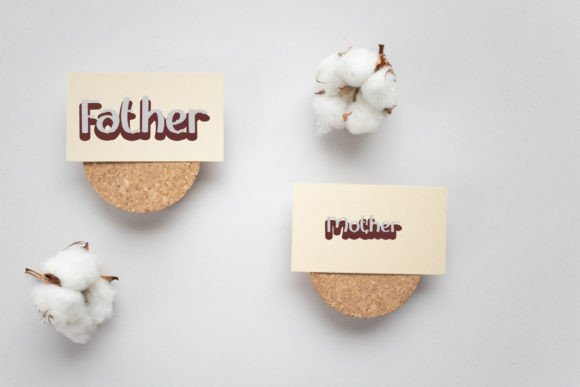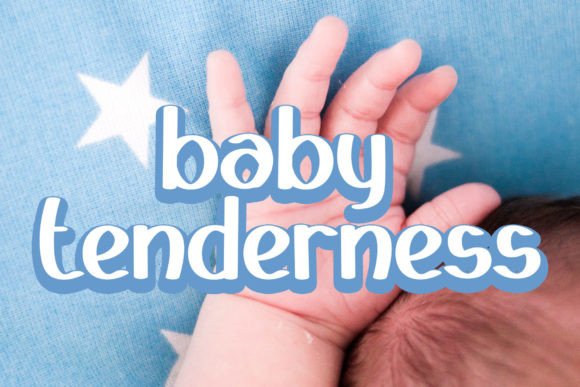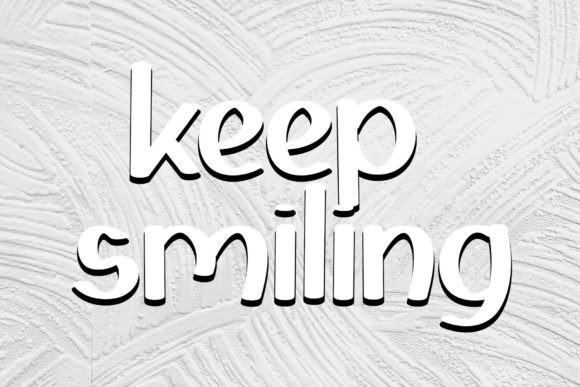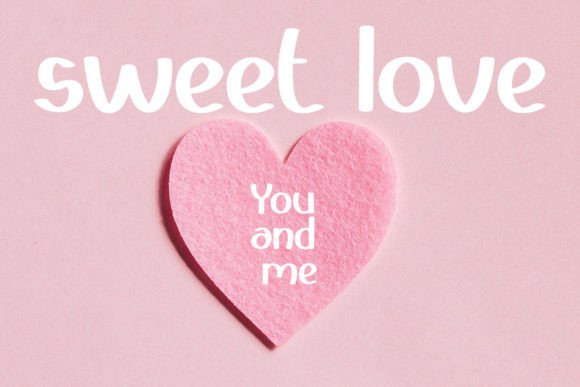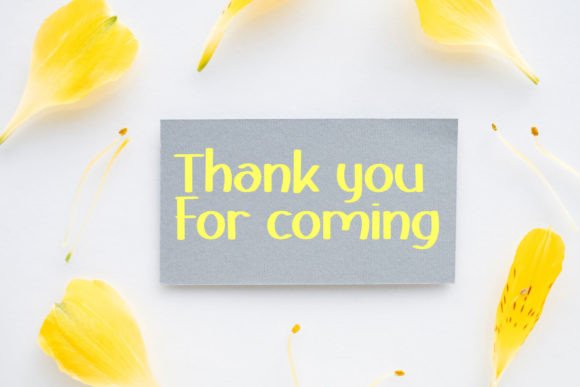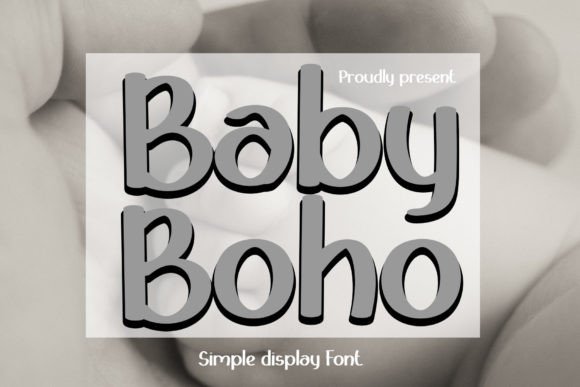
Baby Boho Font: Adding a Touch of Whimsy to Your Designs
In the world of typography, fonts play a crucial role in conveying the tone and personality of a design. For designers and crafters looking for a font that exudes a sense of fun, quirkiness, and individuality, Baby Boho is an excellent choice. This cute handwritten font is perfect for adding a touch of uniqueness to any project, and in this article, we’ll explore what makes Baby Boho so special.
Handwritten fonts have always been popular among designers and crafters, and for good reason. They add a personal touch to any project, making it feel more approachable and relatable. Baby Boho is no exception. Its natural, handwritten style creates a sense of warmth and charm, making it perfect for designs that require a human touch.
What Makes Baby Boho Special?
Baby Boho is a one-of-a-kind font that stands out from the crowd due to its irregular and playful letterforms. Unlike traditional fonts that are uniform and consistent, Baby Boho’s letterforms are unique and quirky, creating a sense of whimsy and individuality. This makes it perfect for designs that require a touch of personality and flair.
Key Features of Baby Boho Font
- Handwritten style: Baby Boho’s natural, handwritten style adds a charming and personal feel to any project.
- Irregular letterforms: The font’s irregular letterforms create a sense of whimsy and individuality, making it perfect for designs that require a touch of uniqueness.
- Playful personality: Baby Boho’s playful personality shines through in its letterforms, making it perfect for designs that require a fun and quirky vibe.
- Cute and charming: The font’s cute and charming style makes it perfect for designs that require a touch of sweetness and innocence.
Uses for Baby Boho Font
Baby Boho is a versatile font that can be used in a variety of design projects, including:
- Branding and packaging: Use Baby Boho to add a touch of personality to your brand’s packaging and branding materials.
- Stationery and invitations: The font’s handwritten style makes it perfect for stationery and invitation designs.
- Crafting and DIY projects: Baby Boho is a great choice for crafters and DIY enthusiasts looking to add a personal touch to their projects.
- Digital designs: The font can be used in digital designs, such as social media graphics, blog posts, and website headers.
Tips for Using Baby Boho Font
Here are a few tips for using Baby Boho in your designs:
- Use it sparingly: Baby Boho’s playful personality can be overwhelming if used excessively. Use it sparingly to add a touch of whimsy to your design.
- Pair it with other fonts: Baby Boho pairs well with other fonts, such as serif and sans-serif fonts. Experiment with different pairings to find the perfect combination.
- Experiment with colors: The font’s handwritten style looks great in a variety of colors. Experiment with different colors to find the perfect shade for your design.
Baby Boho is a unique and charming font that adds a touch of whimsy and individuality to any design. Its natural, handwritten style and playful personality make it perfect for designs that require a personal touch. Whether you’re a designer or crafter, Baby Boho is an excellent choice for adding a touch of uniqueness to your projects.